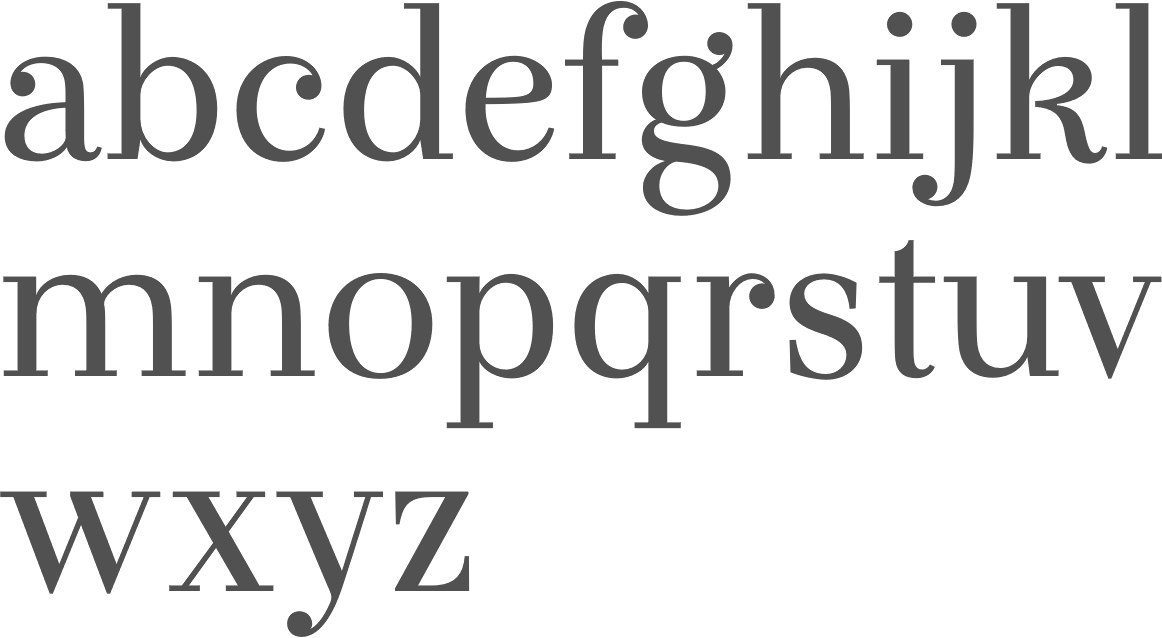
+23 What Is High Contrast Fonts Ideas
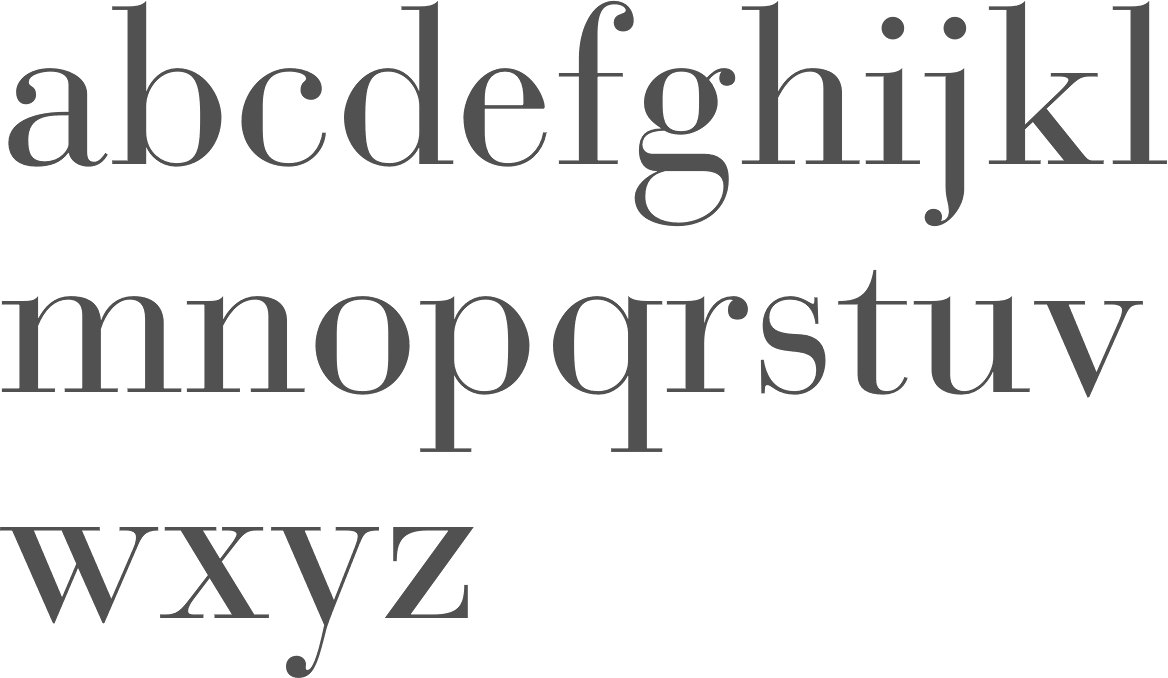
In Typography, Contrast Refers To Weight Contrast, Which Is To Say That Contrast Denotes The Difference Between Thick And Thin Strokes.
The difference between the thick and thin parts of a stroke. Let me illustrate what contrast is using. To turn on contrast themes, select the theme you want from the contrast.
The Contrast Between Large And Small Type.
A monolinear typeface has low stroke contrast, and is the opposite of a high contrast face. Q i know, you said that last time. You can customize colors for things like links and button text.
Tt ramillas is a fully reconsidered high contrast transitional serif, which is perfectly adapted to modern realities and requirements. Are you looking for the. High contrast fonts | myfonts.